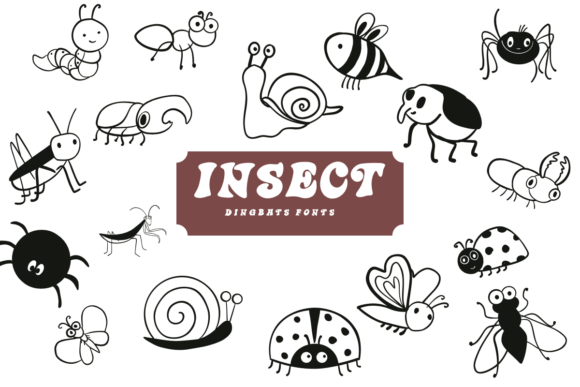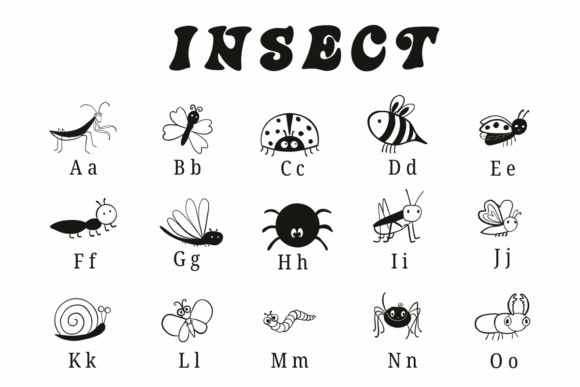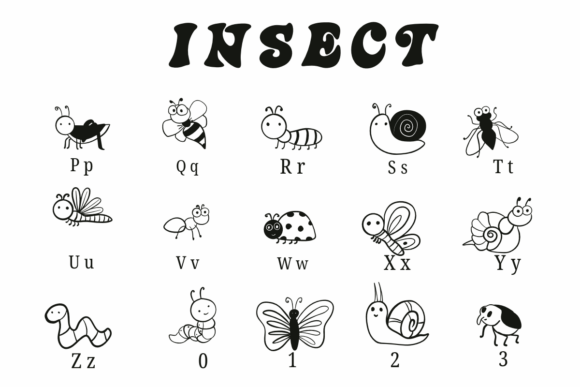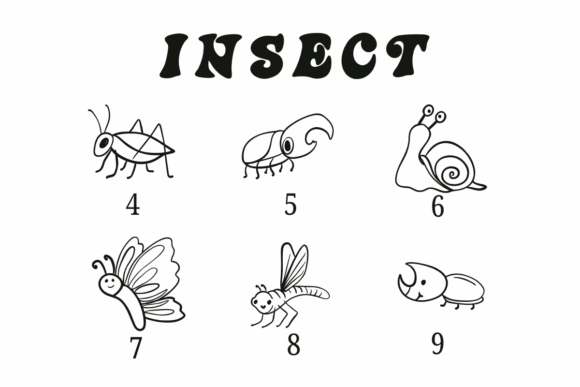
Insect Font
About the Insect Font
Welcome to the world of Insect Font, a typeface that will inspire your next great project. Insect is a dingbats font with a sketched style. This font can enhance your creative projects such as wedding invitations, DIY, crafts, decorations, logos, and many other creative ideas.
Insect’s sketched style works best for projects needing a hand-drawn, whimsical feel. Ideal applications include logos for craft businesses, quirky branding elements, short headlines, and decorative elements in wedding invitations or packaging. However, its low readability makes it unsuitable for body text or UI elements requiring extended reading.
The font’s personality is playful and slightly quirky, lending itself to brands targeting a younger demographic or those with a handmade aesthetic. Consider pairing Insect with a clean sans-serif like Lato for contrast, or a more traditional serif like Garamond for a sophisticated juxtaposition.
For a bolder look, a geometric sans-serif could be effective. Avoid pairing it with other highly decorative fonts, as this could lead to visual overload.